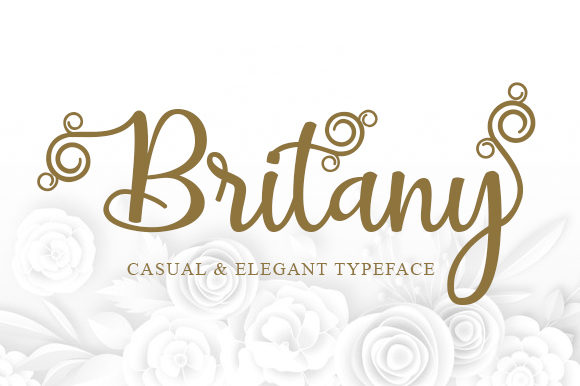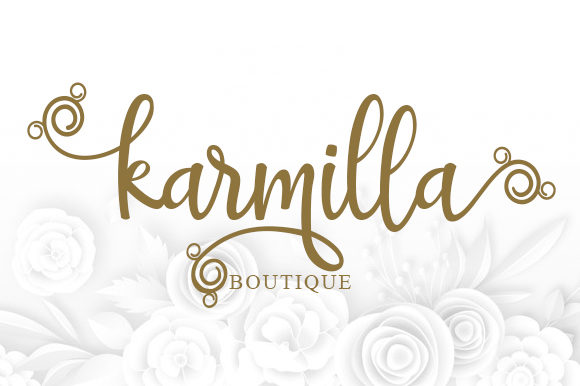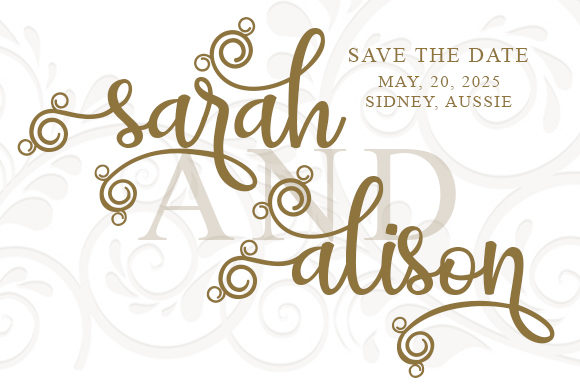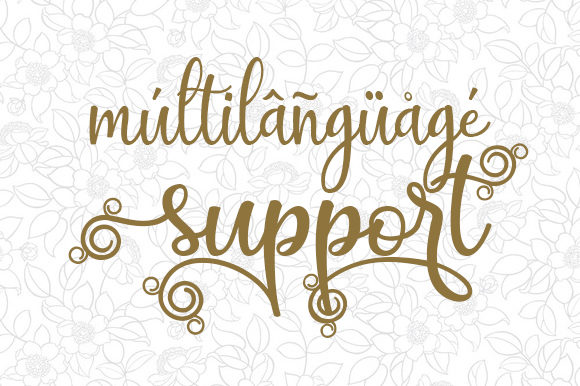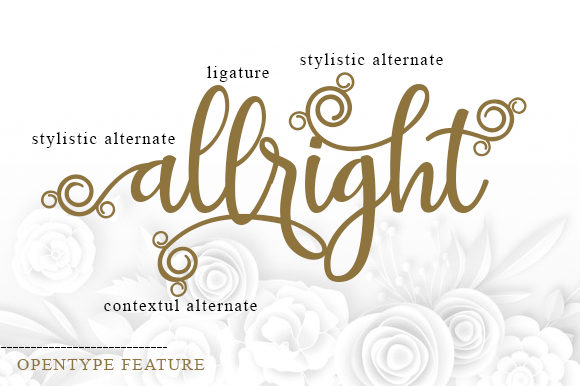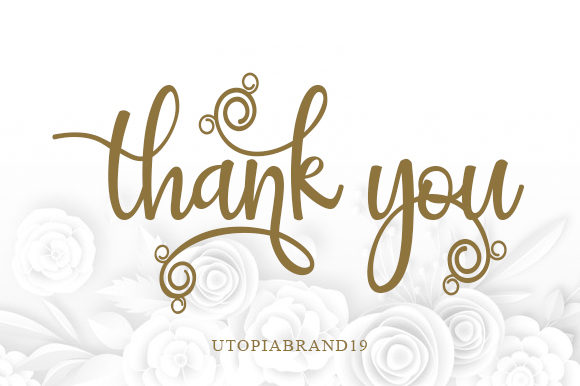
HomeScript FontsBritany Script Font Script Fonts Britany Script Font FacebookXPinterestWhatsApp Britany Script Font Poster 2 Britany Script Font Poster 3 Britany Script Font Poster 4 Britany Script Font Poster 5 Britany Script Font Poster 6 Britany Script Font Poster 7 About Britany Script Font Britany is an incredibly fluid and organic script with iconic swashes. Fall in love with its romantic vibe! DOWNLOAD NOW People also explored Cartons Font Exposure Font Gattera Font Barosaki Font Qenbay Font Food Table Catering Name Card Mockup Merry and Bright Font Marvin Bright Font Spring Park Font 334 0 TagsBritany Script Font Previous articleRalisto FontNext articleBoss Font LEAVE A REPLY Cancel reply Comment: Please enter your comment! Name:* Please enter your name here Email:* You have entered an incorrect email address! Please enter your email address here Website: Save my name, email, and website in this browser for the next time I comment. Personal Use Free Heartburn Personal Use Free Read more about this font Jurnal Personal Use Free Read more about this font Lanilla Personal Use Free Read more about this font Astercla Personal Use Free Read more about this font BLOG Using Fonts in Digital Marketing: Tips to Strengthen Your Brand Identity In the realm of digital marketing, every visual element plays a crucial role in shaping a brand's identity, and fonts are no exception. The... Top 7 Google Fonts Alternatives for Faster and Privacy-Friendly Web Design (2025) Best Fonts for YouTube Videos: Make Your Thumbnails Stand Out Free vs Paid Fonts: Why Investing in Premium Fonts Is Worth It